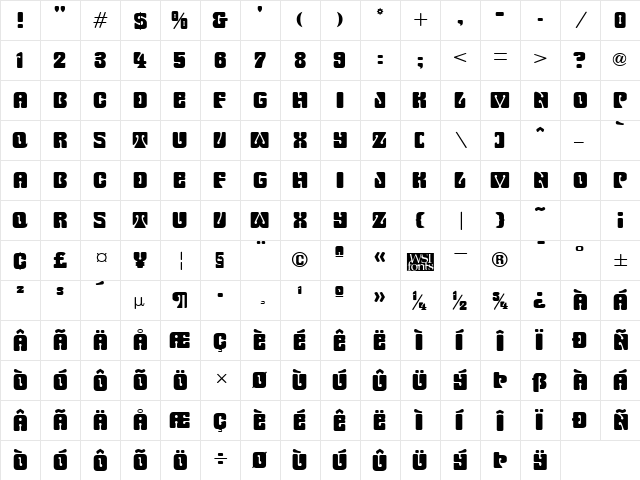
Dye-Cut Regular Font Preview
Dye-Cut Regular
Design Context for Dye-Cut Typeface
Dye-Cut is a composed and adaptable typeface that performs quietly and consistently across a wide range of design contexts.